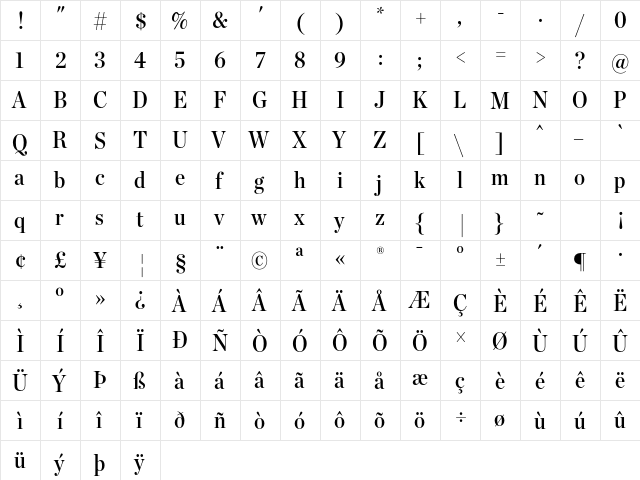
Chronicle Disp Cond Semibold
| Foundry | Hoefler & Frere-Jones |
| Designer | Hoefler & Frere-Jones |
Design Context for Chronicle Disp Cond Typeface
Chronicle Disp Cond is a composed and adaptable typeface that performs quietly and consistently across a wide range of design contexts. Its bold stroke weight gives it real presence on the page. Its narrow stance lets it pack a punch even in space-constrained designs.
Pro Tip: Use Chronicle Disp Cond in both headline and body roles to test its range before committing to a single application.